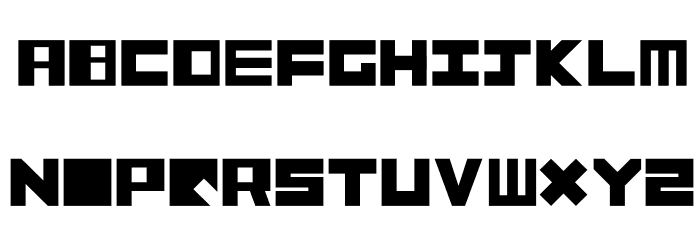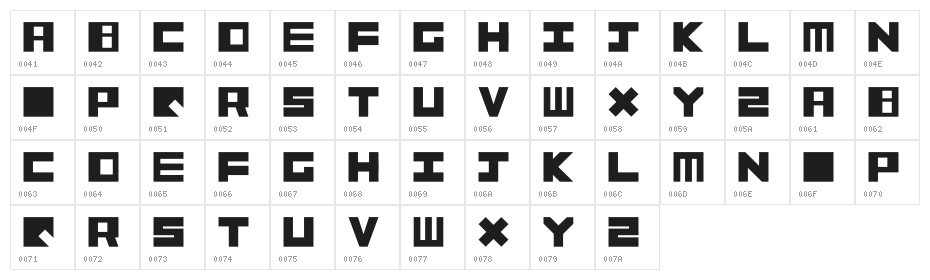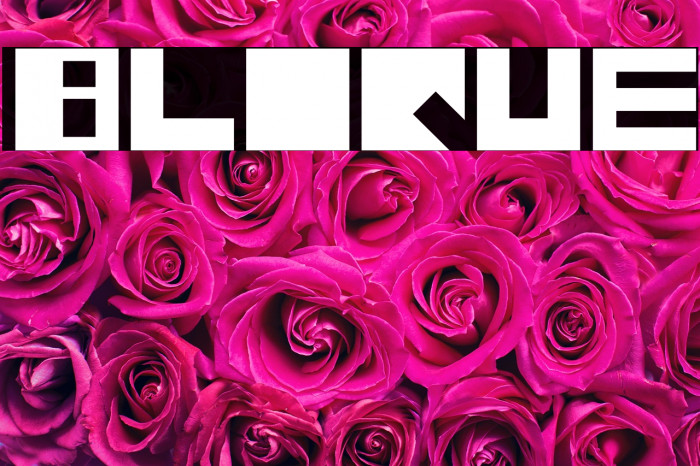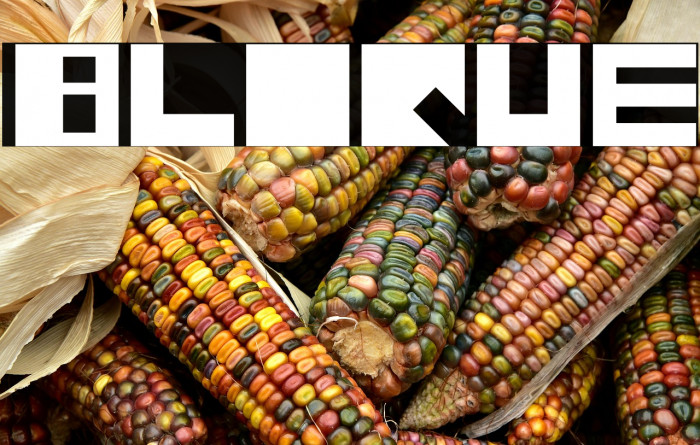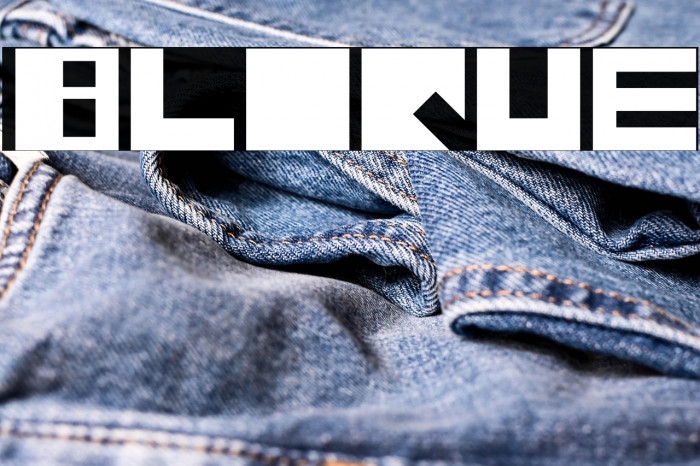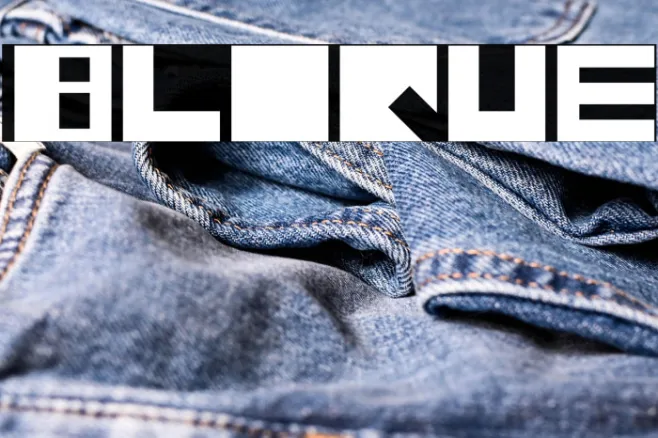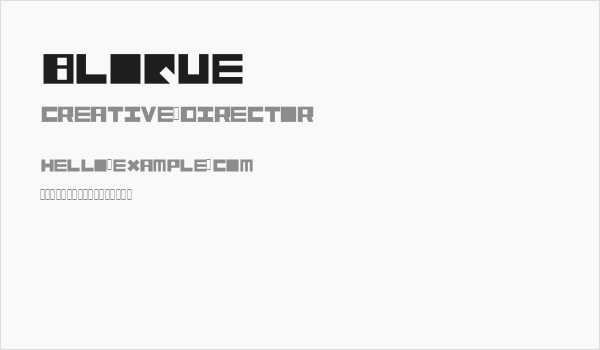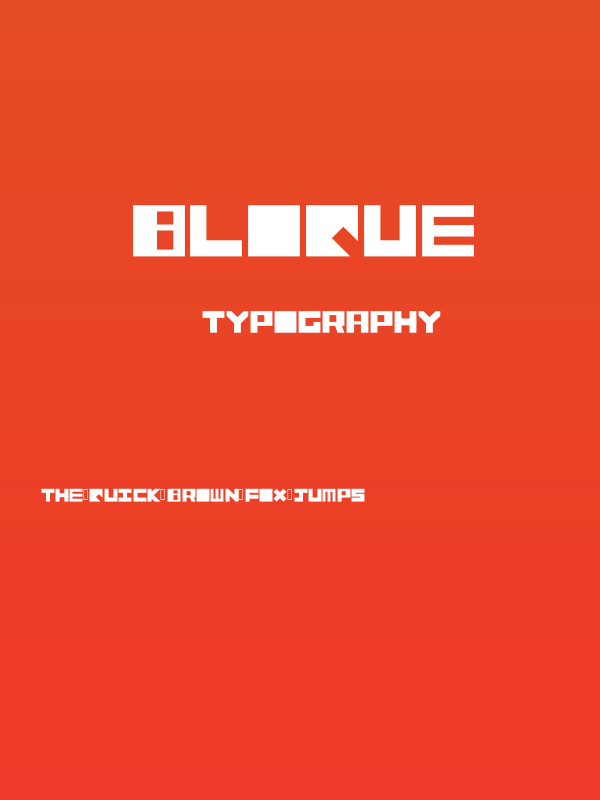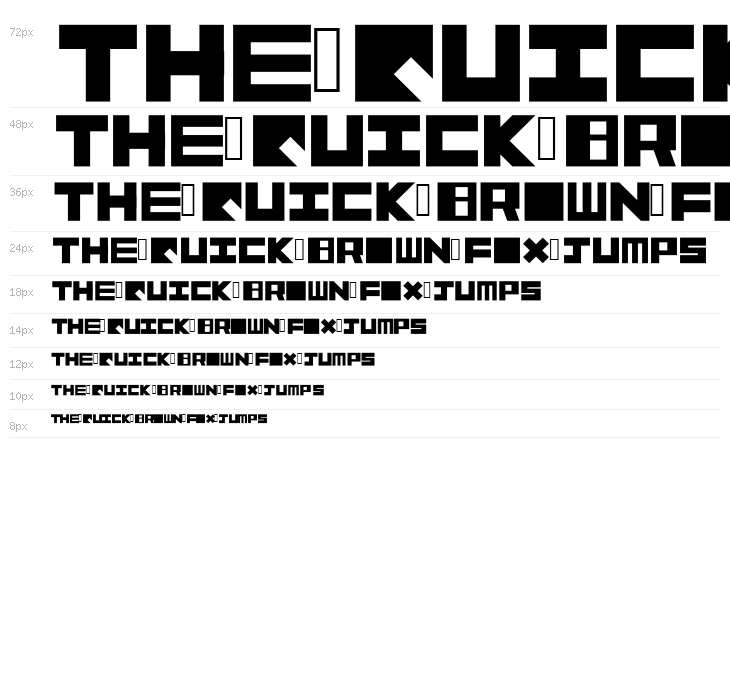
Bloque Font
Bloque Description
This font features a bold, geometric design with a strong emphasis on angular shapes and sharp edges. Each character is constructed with a block-like structure, giving it a distinct, modern appearance. The uniformity and symmetry of the letters create a cohesive and striking visual impact. The font's style is reminiscent of digital or technological themes, making it suitable for contemporary and futuristic designs. Its boldness ensures high visibility and readability, even from a distance, making it ideal for impactful headlines or titles.
| Proposed Projects | Ideal for tech-themed posters, modern branding, video game titles, and digital media. |